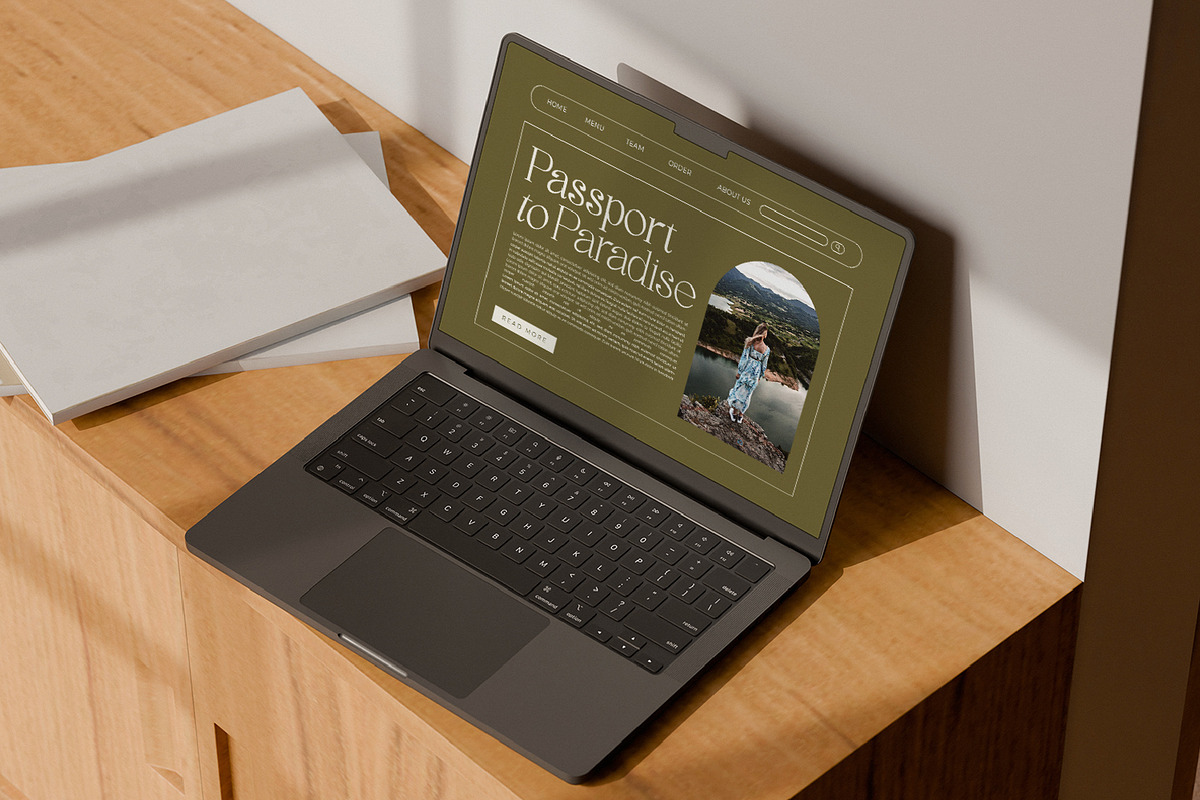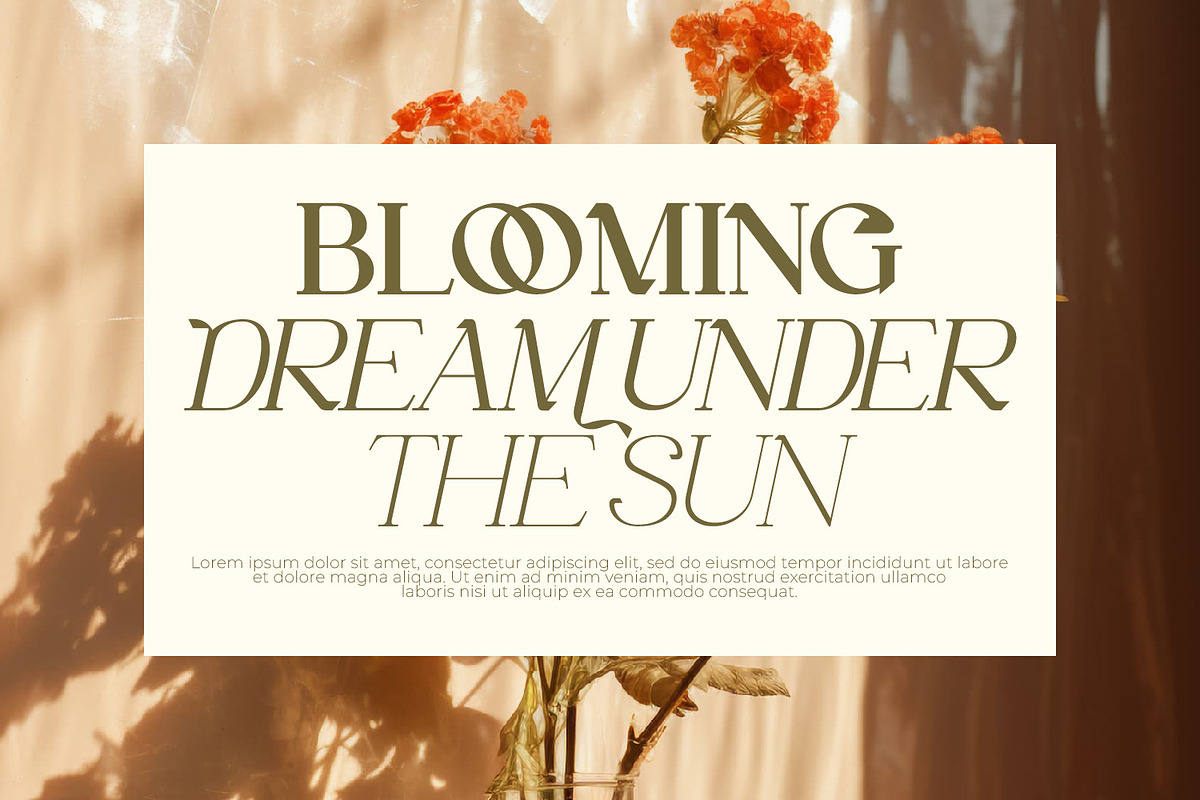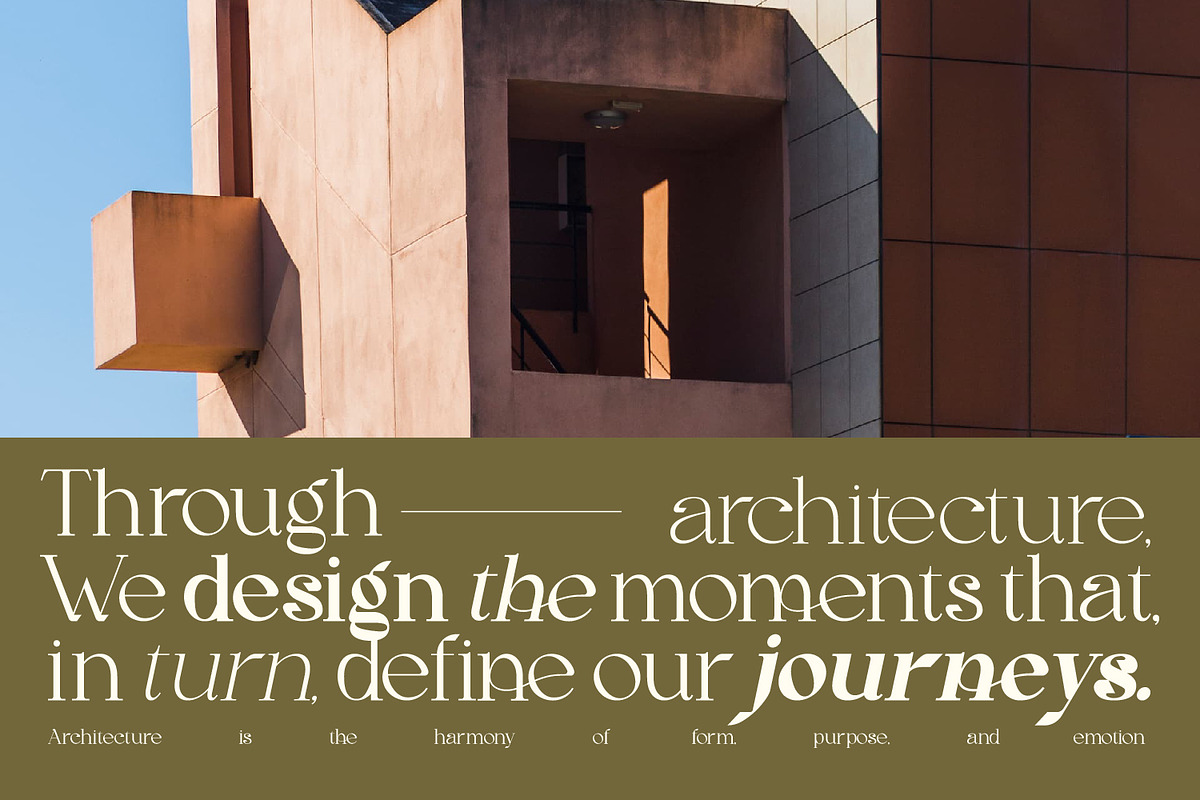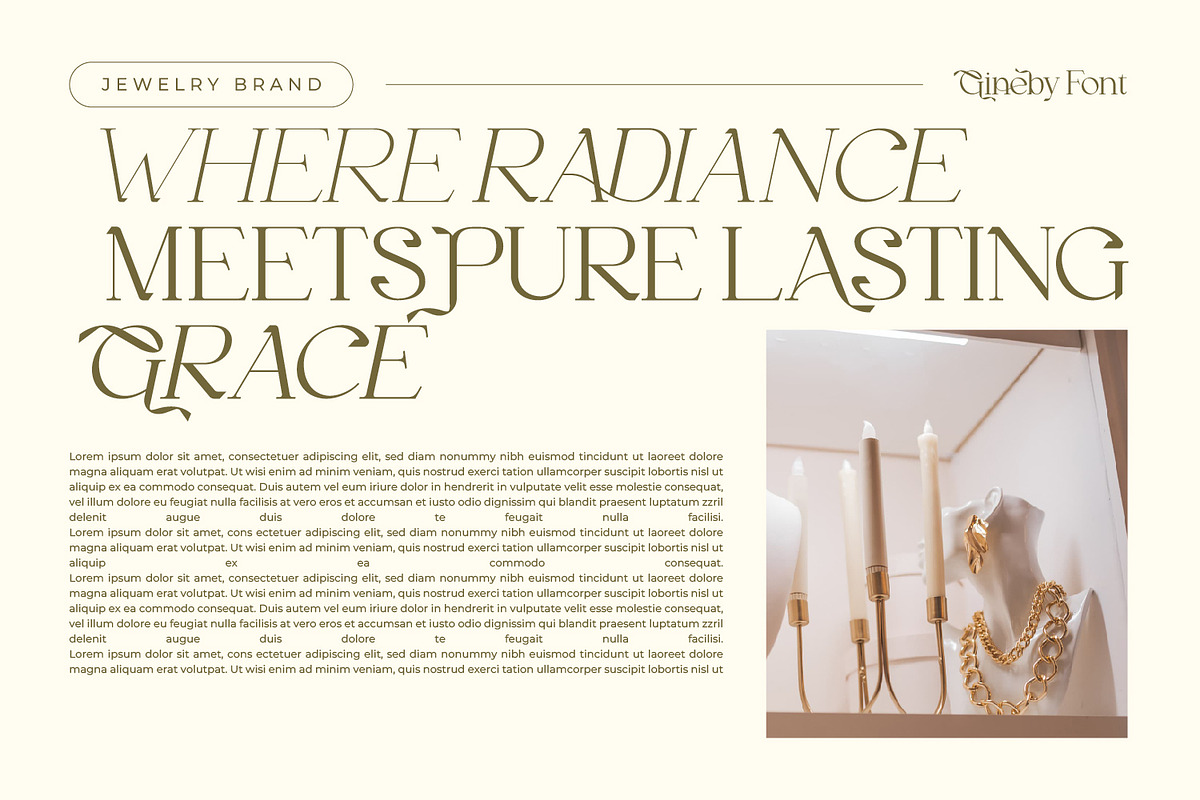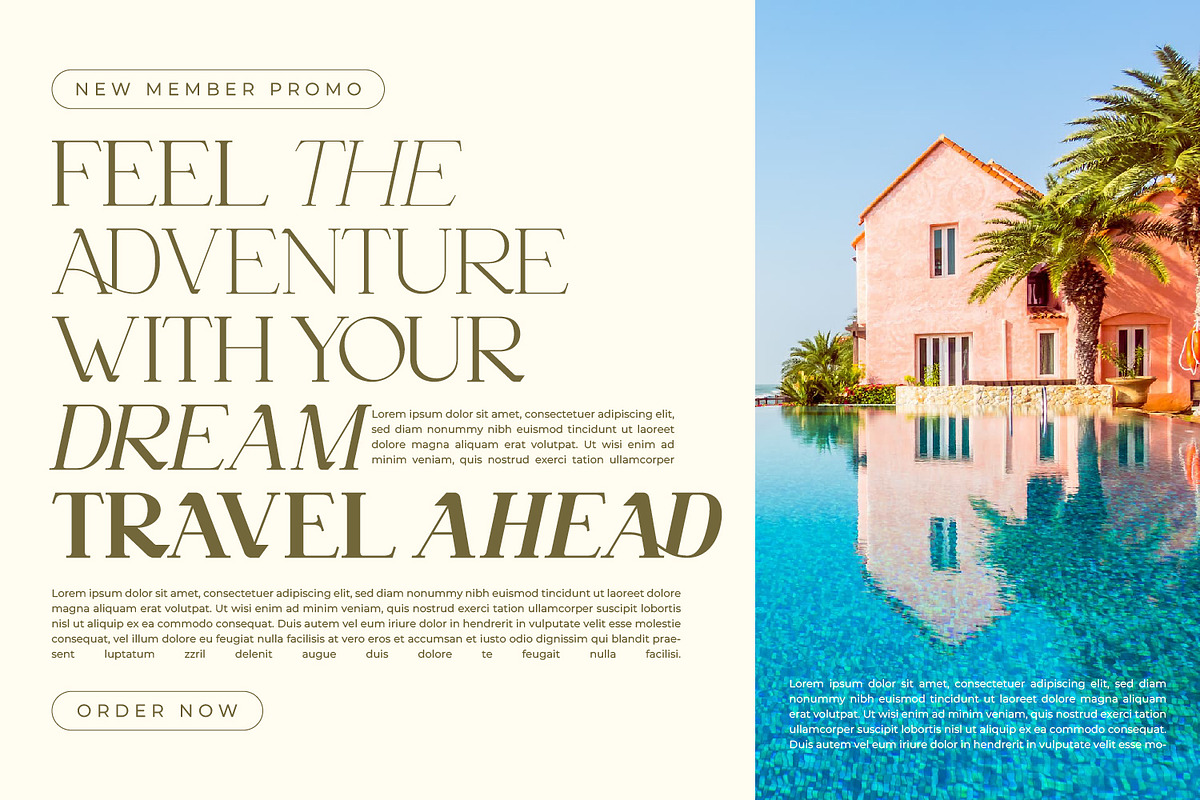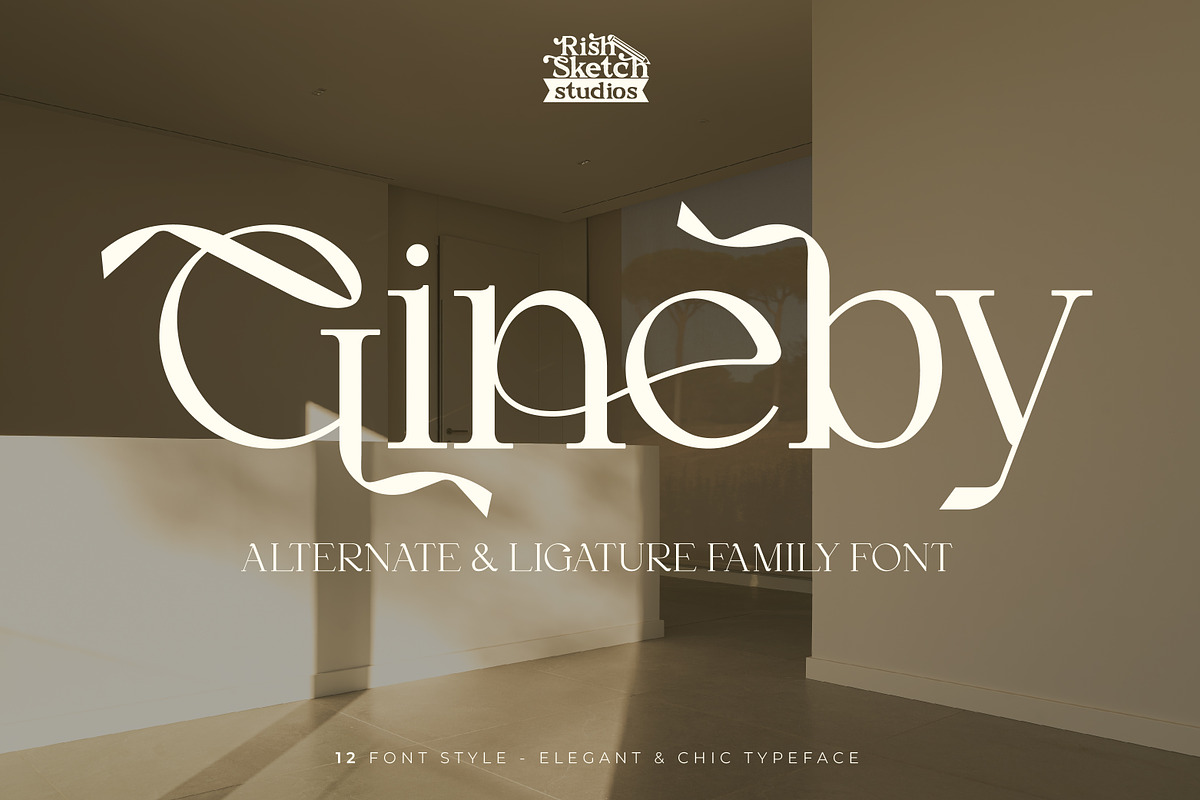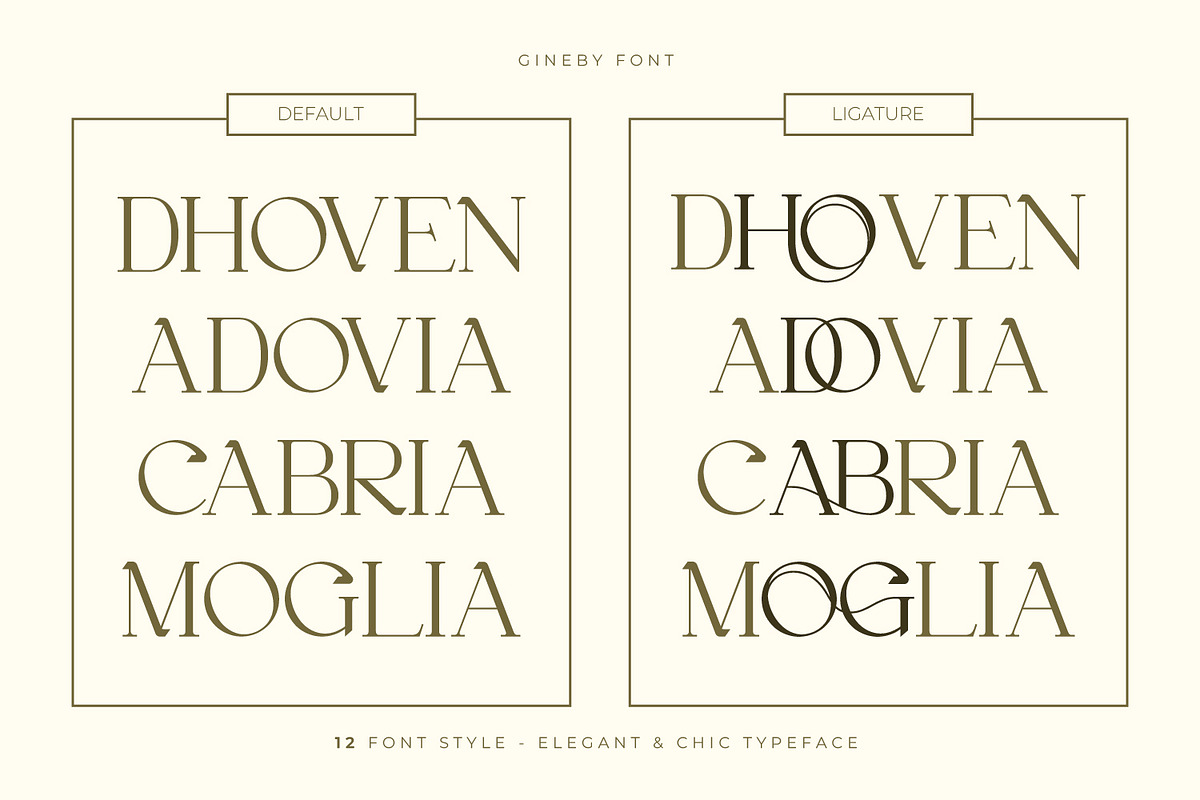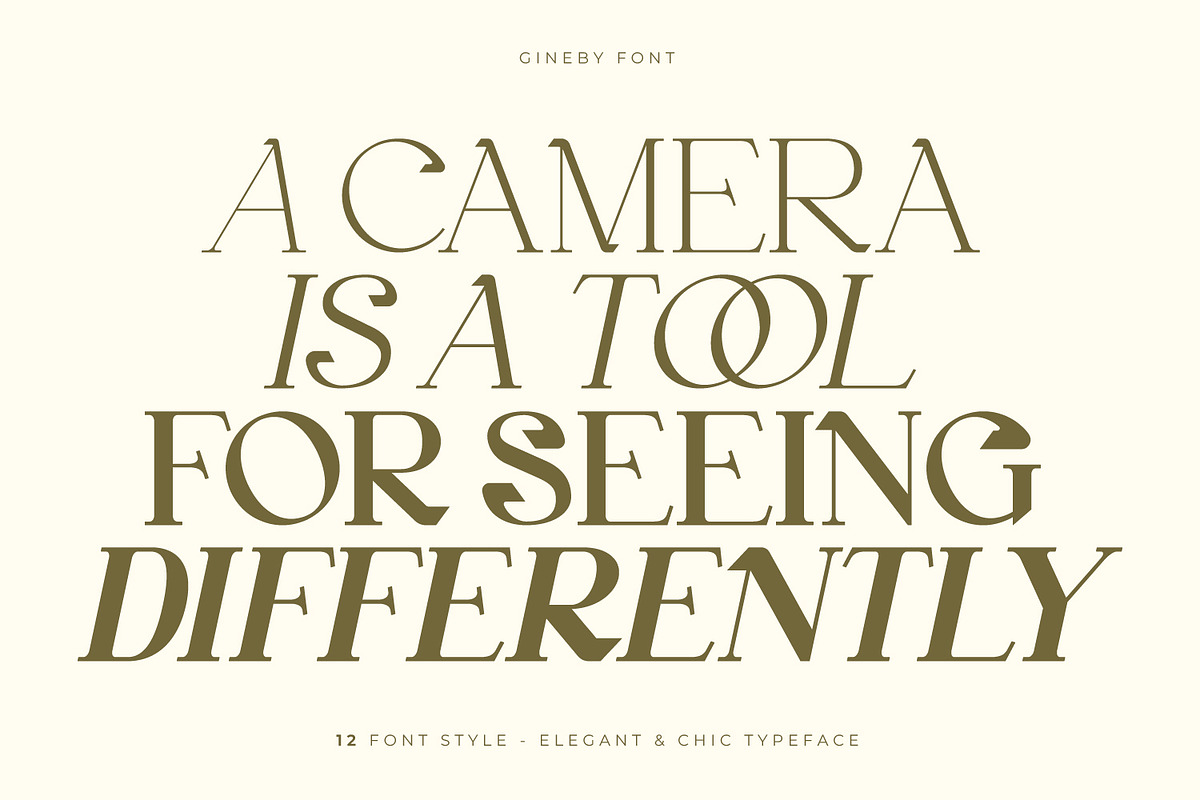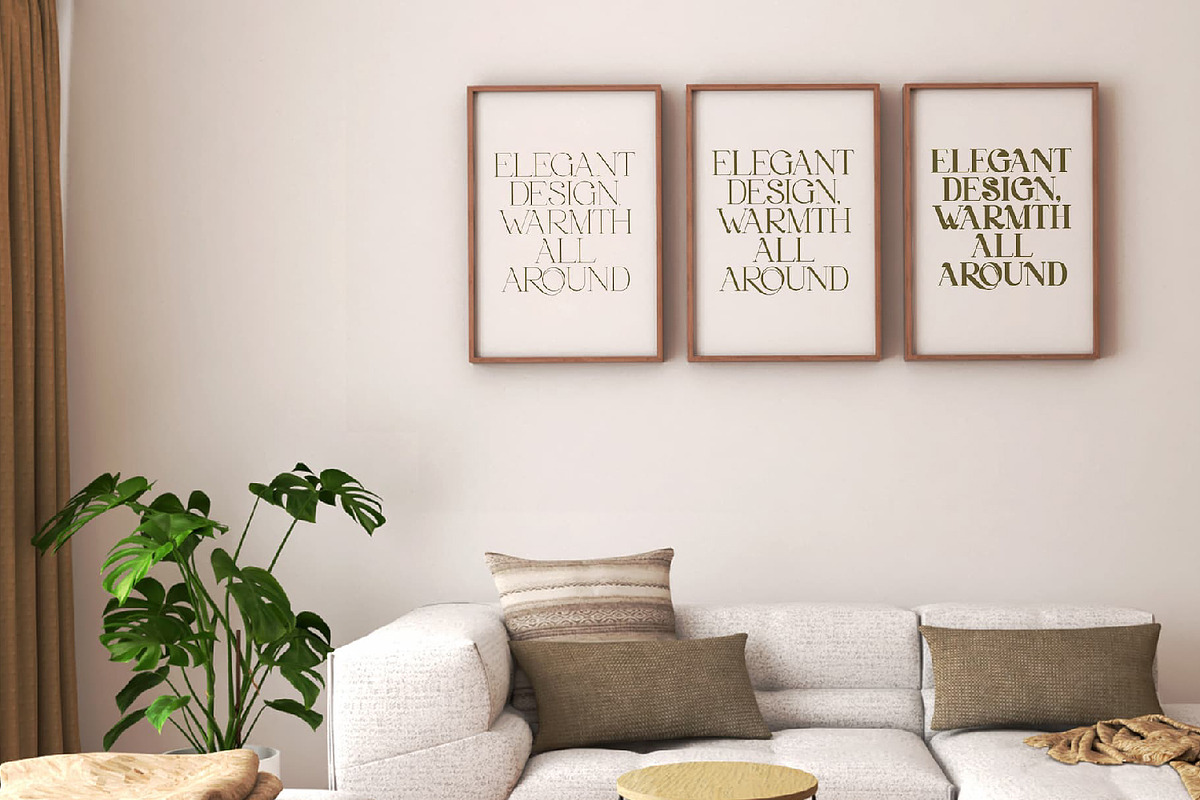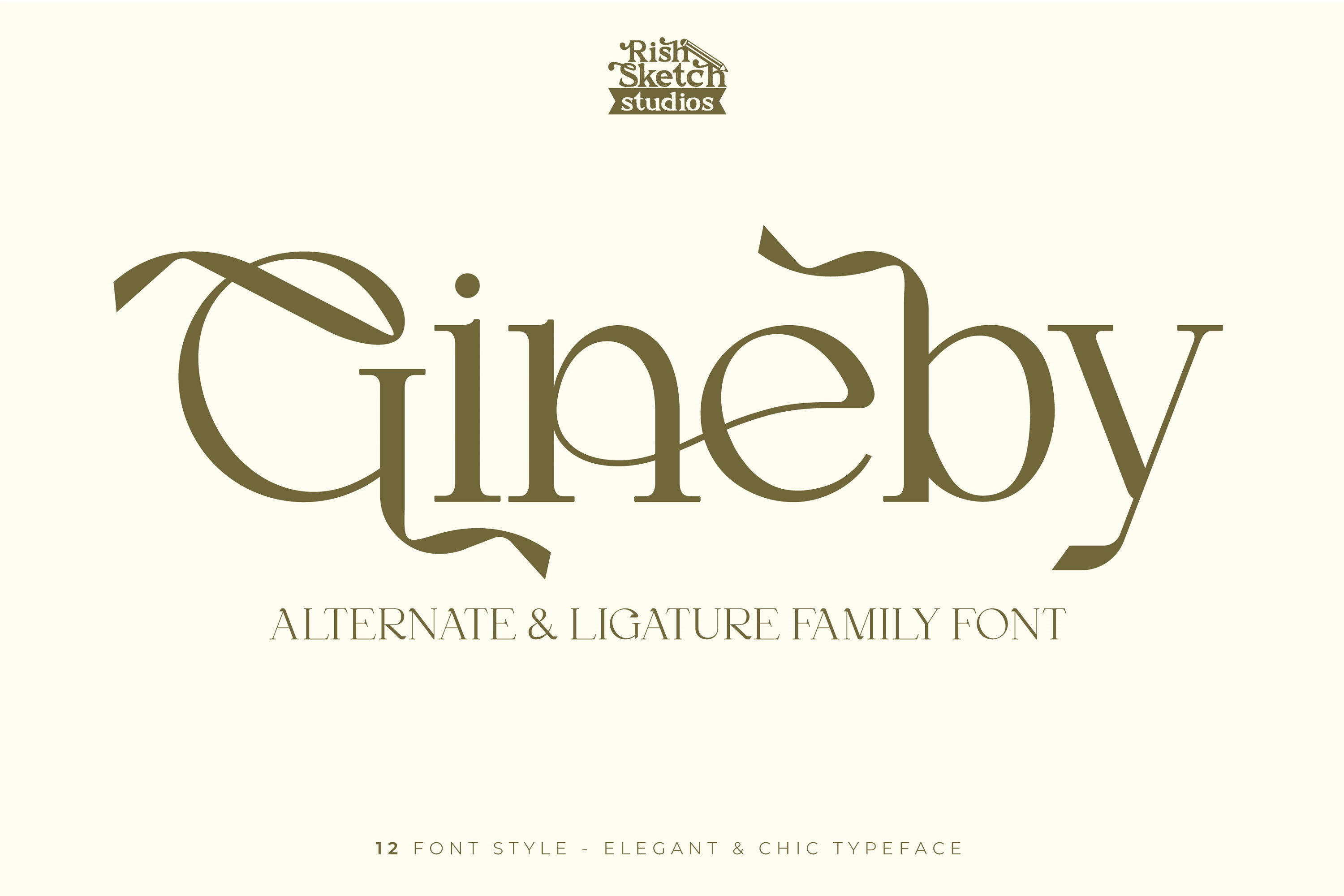
Gineby - Serif Typeface Font
Gineby - Serif Typeface Family Font, from Rishsketch Studios, is a premium Serif Typeface Family Font, perfect for any project that requires a distinctive, and premium feel.
Ligature, Alternate, & Multilingual